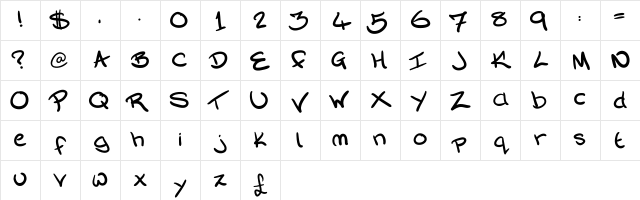
Silky Written Bold Free Font
Silky Written Bold
Design Context for Silky Written
Silky Written is a composed and adaptable typeface that performs quietly and consistently across a wide range of design contexts. Its bold stroke weight gives it real presence on the page.